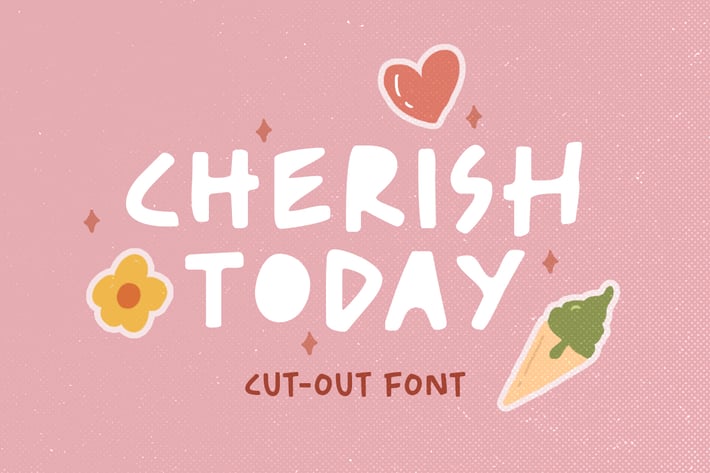
Cherish Today - Cutout Font
Cherish Today is a quotable handwritten sans with cutout form. You can use this font for any project such as a merchandise, t-shirt design, or simple quotes. This font will make your project more natural and humanist. Cherish Today is a nice and never goes wrong choice for your instagram post! This font also contains unique lowercase that will make your project less ordinary. This font also support multilingual.